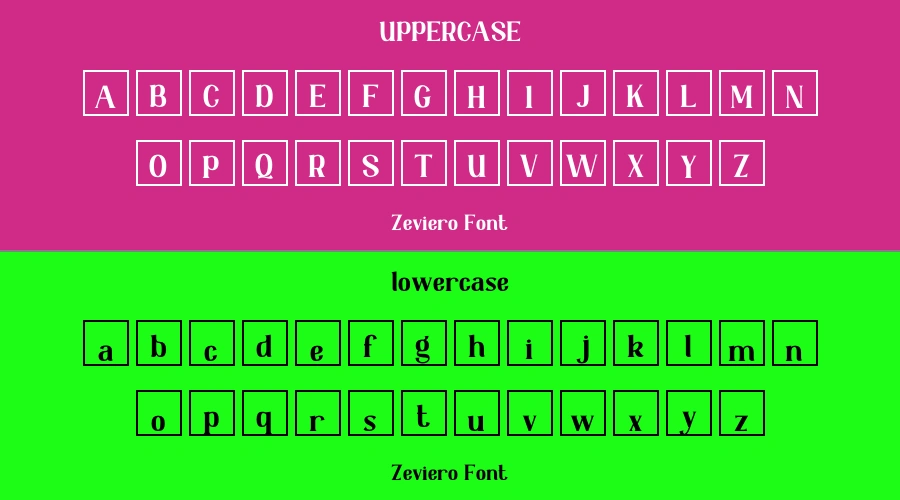
About Zeviero Font
Zeviero Font represents a sophisticated approach to type design, balancing clean corners with consumer engagement. Perfect for poster titles, this font family showcases impressive originality and industrial strength throughout its character set. Designers appreciate its versatility and reliability.
Designers will appreciate nuanced touches including pressure variations and contextual ligatures, adding sophistication to any project. These features become apparent in warning labels, where special character access matters most. The careful treatment of contrast level and cultural context ensures optimal performance.
Zeviero Font |